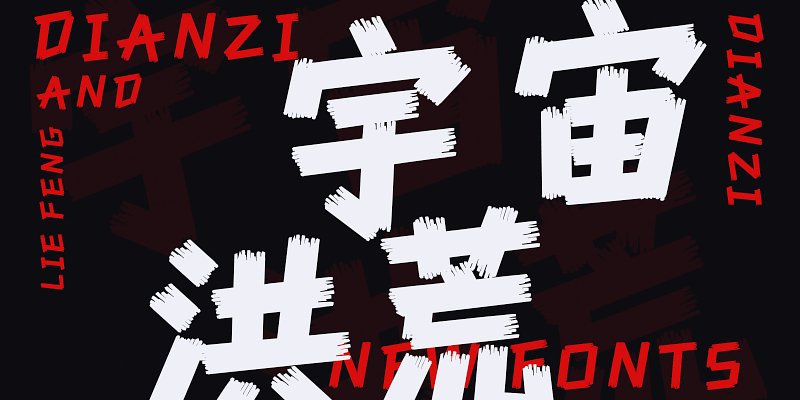
HelloFont ID Lie Feng Font Free Download is a bold and dynamic Chinese display font inspired by the energy and intensity of handwritten brush lettering. The name “Lie Feng” (烈风) translates to “fierce wind,” and the typeface embodies that spirit through its sweeping strokes, powerful movement, and expressive rhythm. It’s ideal for posters, event graphics, packaging, logos, or any design where impact and emotion are essential.
HelloFont ID Lie Feng Font Free Download captures the essence of traditional calligraphy while infusing it with a raw, contemporary edge. The brush-inspired style gives each character a sense of motion and spontaneity—perfect for high-energy branding, martial arts themes, action titles, or cultural promotions that want to stand out.
With support for simplified Chinese characters and a basic Latin set, this font also works well in bilingual layouts, especially those that emphasize visual storytelling and emotional depth.
Powerful, passionate, and full of life—HelloFont ID Lie Feng is the perfect font when your message needs to move fast, hit hard, and leave a lasting impression.